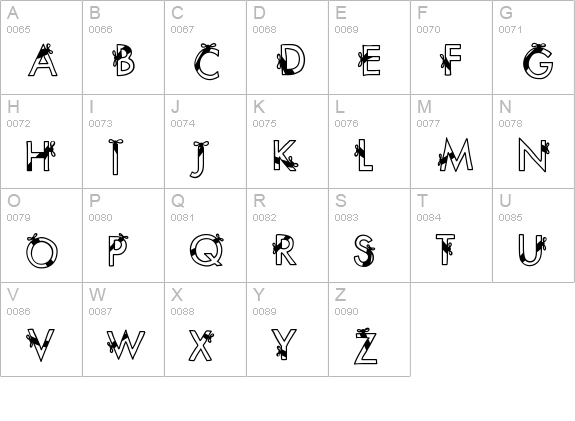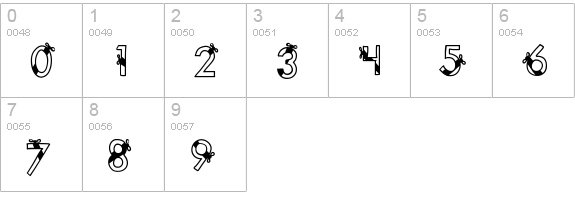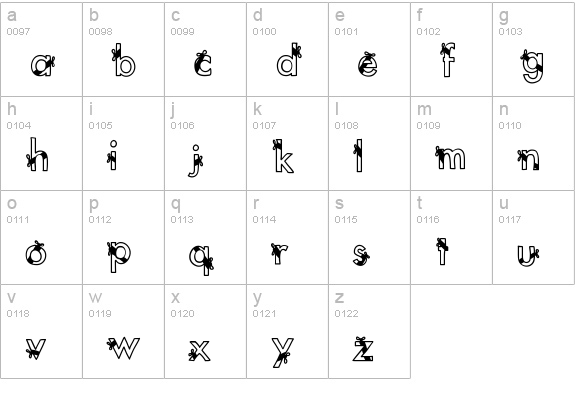
KBRibbonsAndBows is a captivating and elegant font that adds a touch of whimsy and sophistication to any design. With its delicate curves and playful loops, this font resembles beautifully tied ribbons and bows, making it perfect for projects that require a touch of femininity and charm. Whether you are designing invitations for a wedding, creating a logo for a boutique, or crafting a greeting card for a loved one, KBRibbonsAndBows will bring your ideas to life with its unique and eye-catching style. Its graceful letterforms and graceful strokes make it a versatile font that can be used for a wide range of creative projects. One of the best things about KBRibbonsAndBows is that it is freely available to download at FontsMarket.com. This means that you can easily access this stunning font without any cost, allowing you to unleash your creativity without breaking the bank. Whether you are a professional designer or a hobbyist looking to add a special touch to your projects, KBRibbonsAndBows is the perfect font for you. So why wait? Download KBRibbonsAndBows today and start creating stunning designs that will captivate and enchant your audience. With its free availability and enchanting design, this font is a must-have for any designer's toolkit.